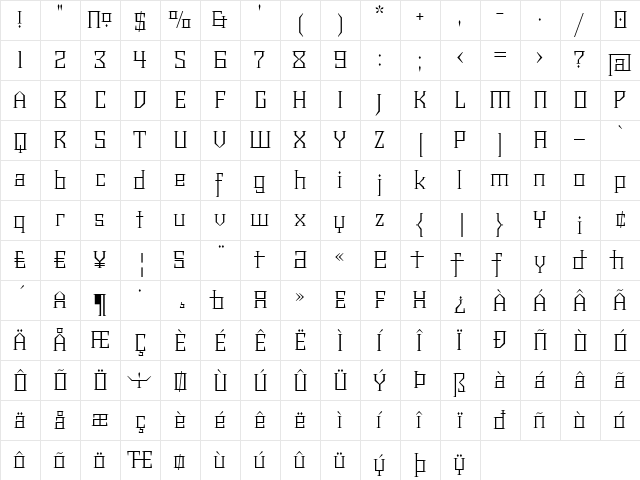
Chalice Light Regular
Design Context for Chalice Light Typeface
Chalice Light takes a measured approach to typography — its balanced proportions and neutral character make it a reliable workhorse for both digital and print work. Its slender proportions lend an understated elegance to any composition.